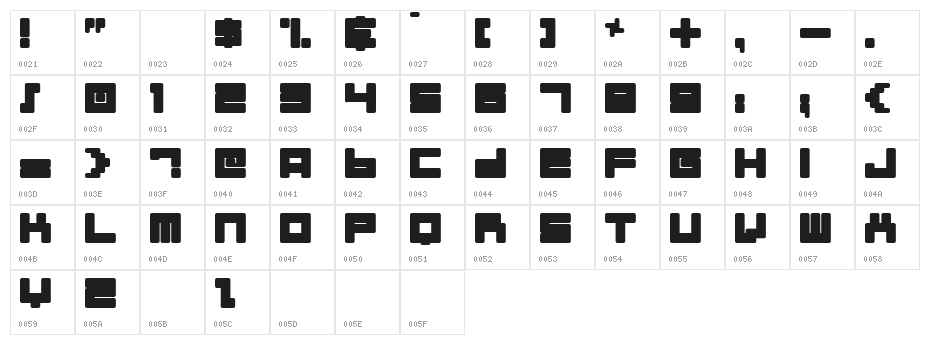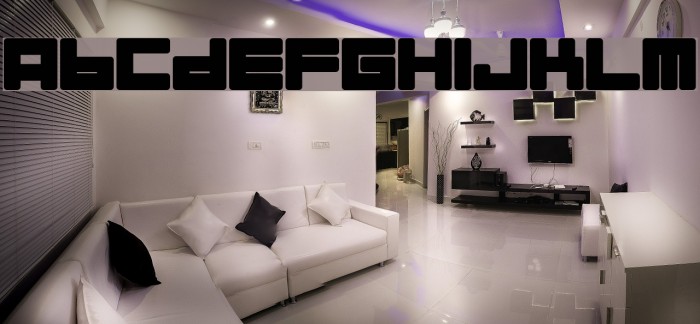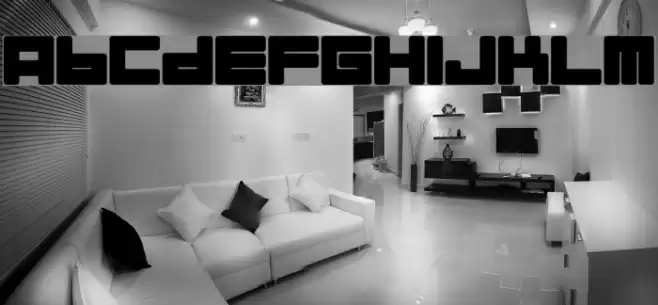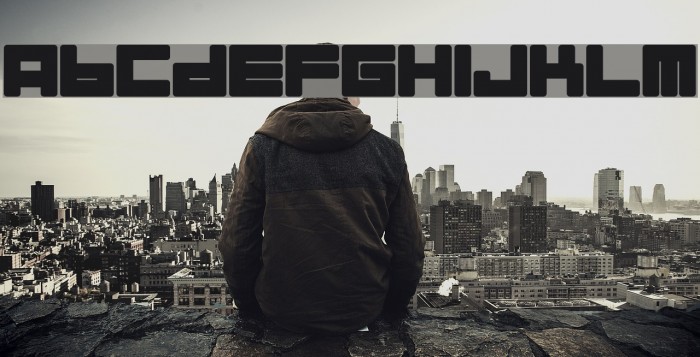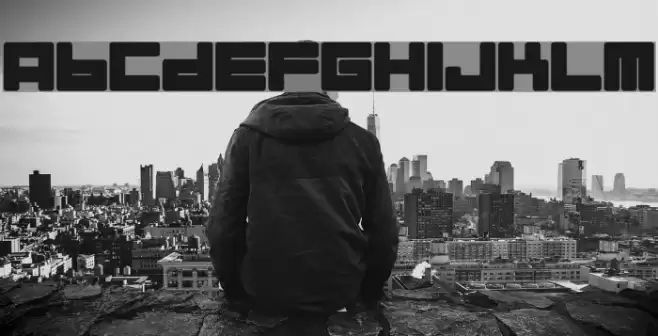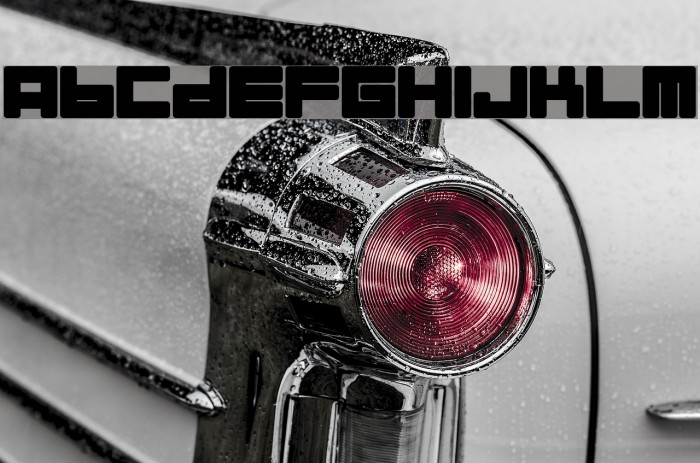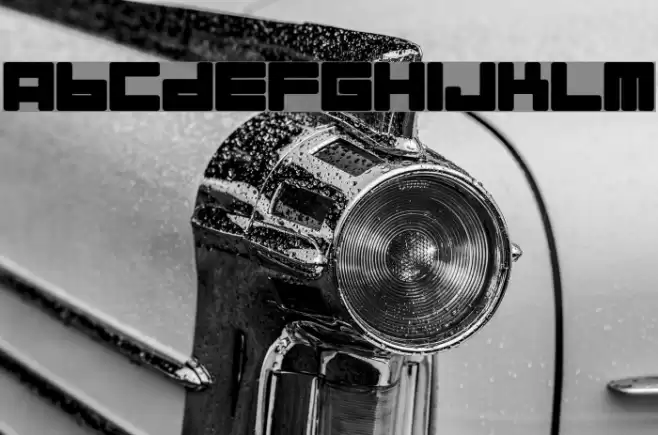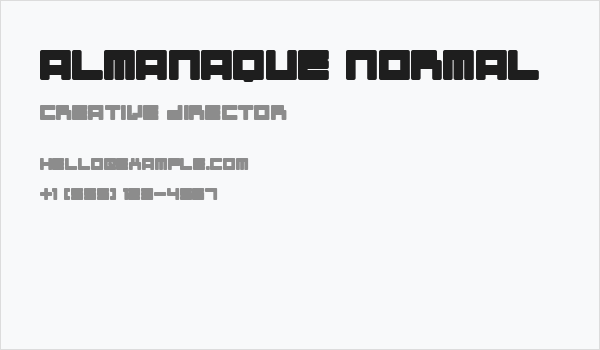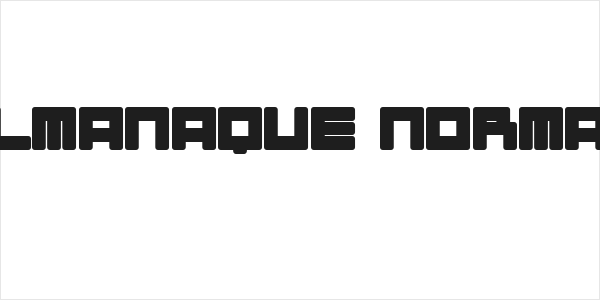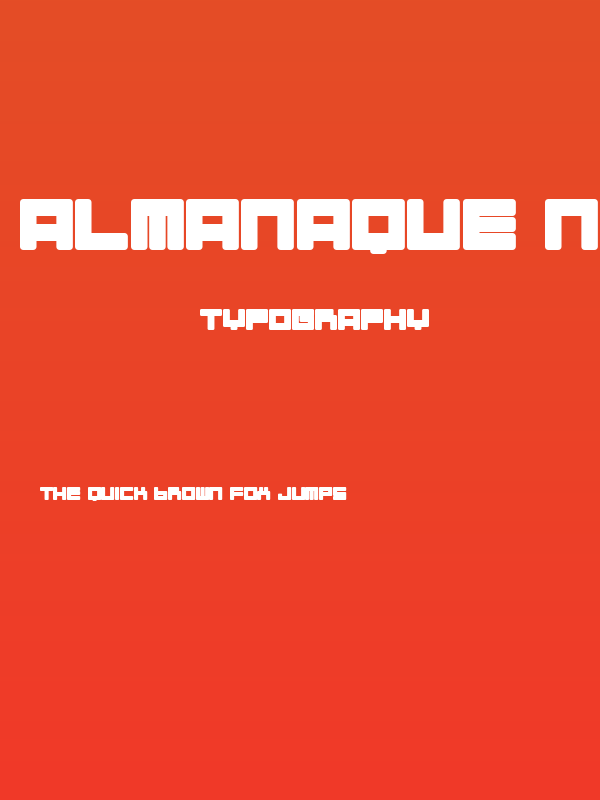
Almanaque Normal Font
Almanaque Normal Description
This font features a bold, geometric design with a distinctly modern and futuristic aesthetic. The characters are constructed with thick, uniform strokes, creating a strong visual impact. The edges are rounded, giving the font a softer appearance despite its boldness. The overall style is blocky and compact, with minimal spacing between characters, which enhances its cohesive look. The font is highly legible and suitable for attention-grabbing headlines or display purposes. Its unique style makes it ideal for projects that require a contemporary and edgy feel.
Proposed ProjectsIdeal for branding, posters, video game graphics, and sci-fi themed projects.